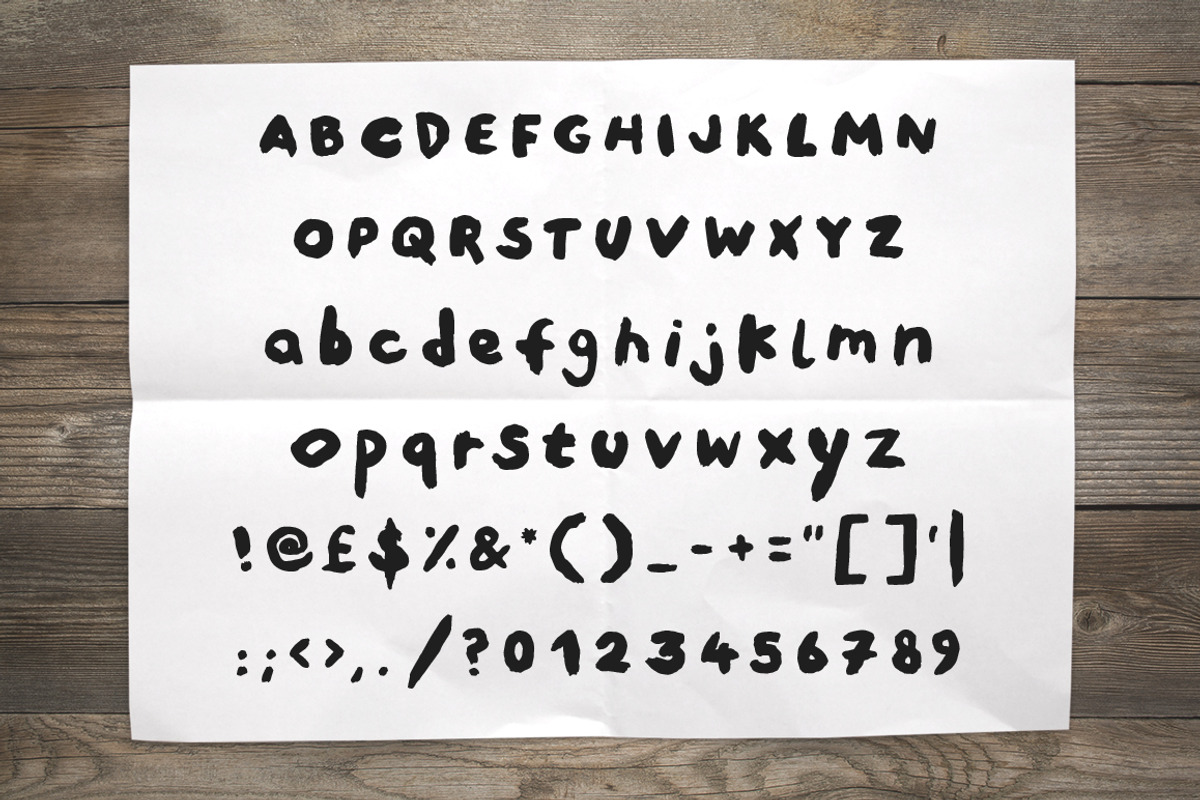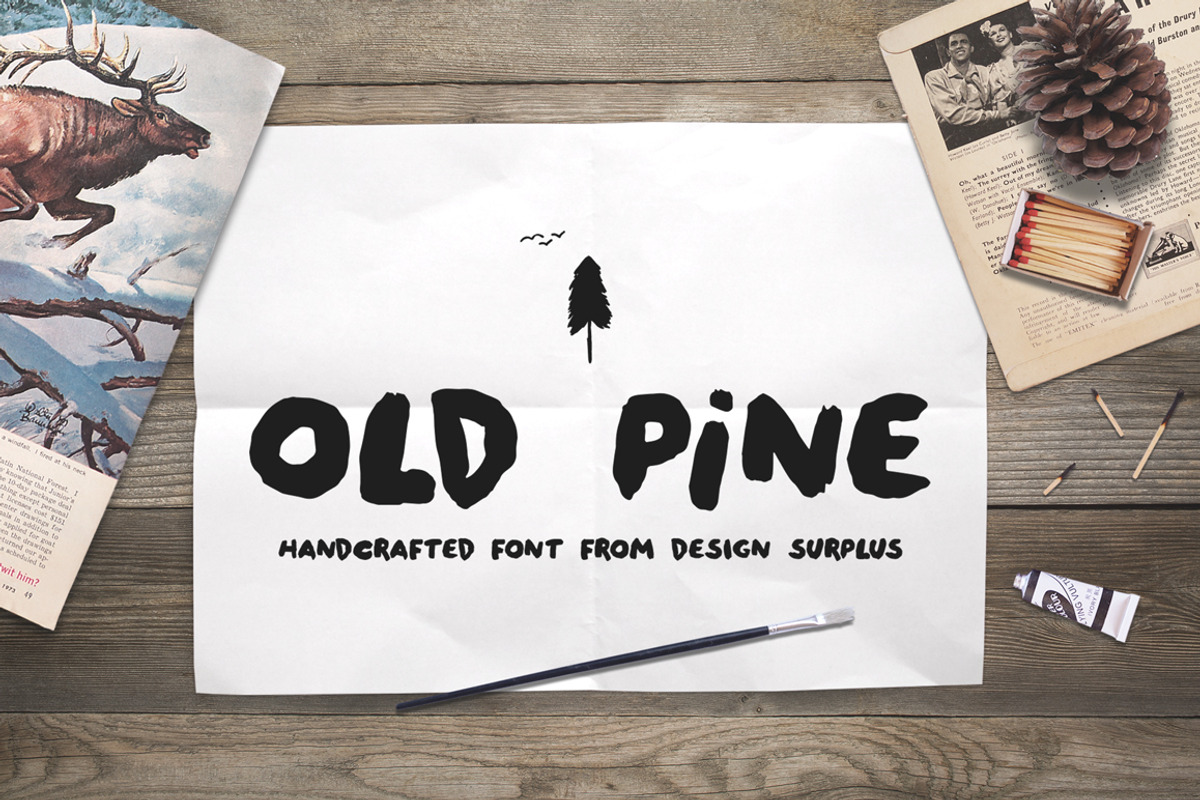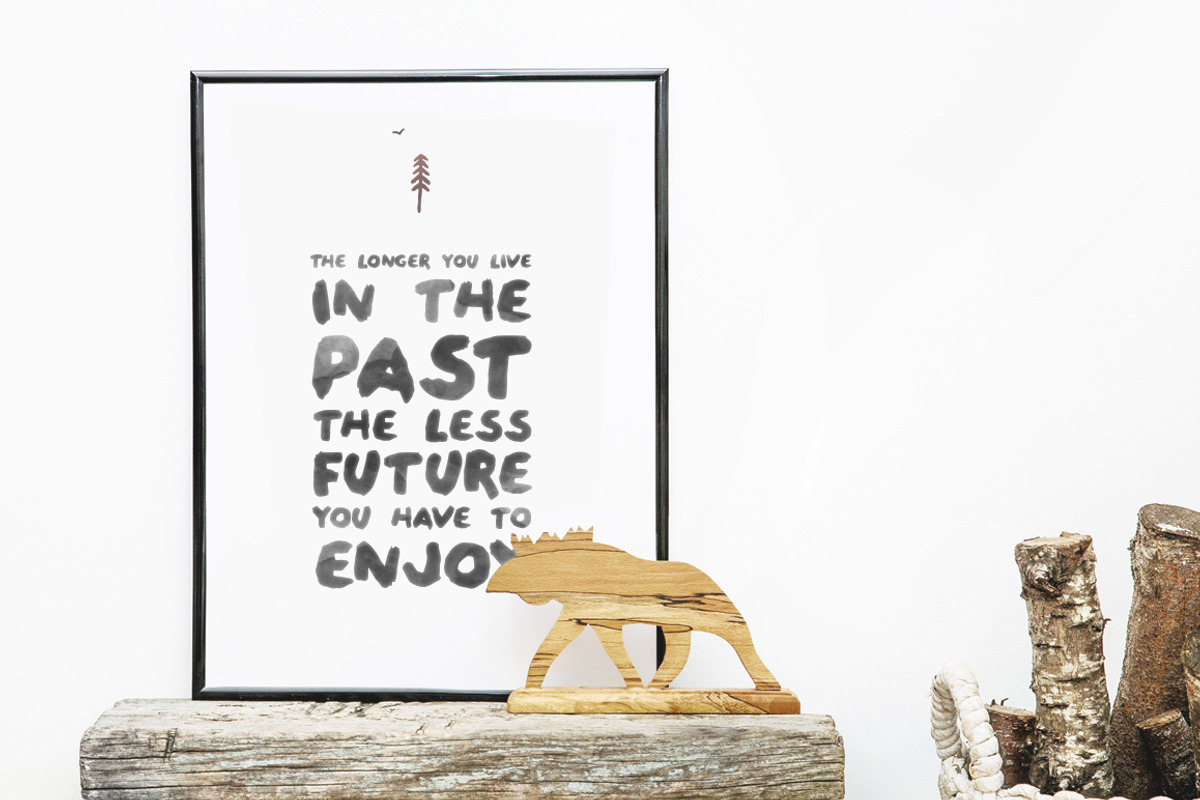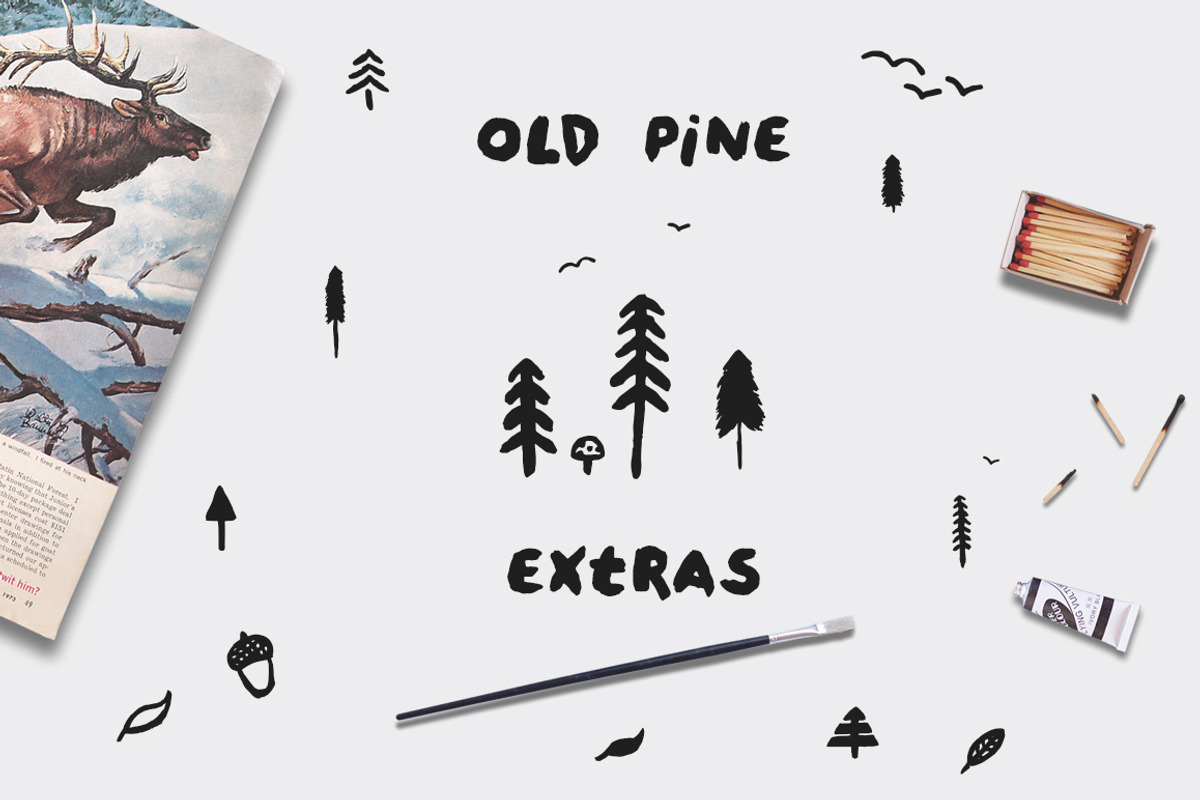
Old Pine Font + Extras
Old Pine Font + Extras by Design Surplus is a font selected for branding, posters, packaging, typography.
- Old Pine includes a collection of upper and lower case letters that work together seamlessly when mixed.
- Old Pine Regular
- Old Pine Extras
Old Pine Font + Extras by Design Surplus fits naturally into Branding, posters, packaging, typography.